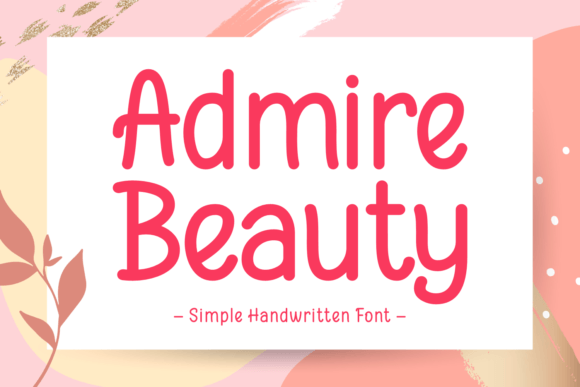
Where Typography Meets Timeless Beauty
Have you ever found yourself staring at a beautifully designed wedding invitation, wondering what made it so special? Maybe it was the delicate dance of letters, the way they seemed to whisper a message of love and joy. For designers, that moment of wonder is what drives us to create something truly breathtaking. And that’s exactly what the Admire Beauty Font offers – a chance to elevate your designs with a touch of elegance and sophistication.
Perfect for print or digital media, this stunning typeface is designed to bring a sense of simplicity and refinement to your work. Whether you’re creating wedding invitations, branding materials, or editorial designs, the Admire Beauty Font is a valuable asset that will make your creations stand out. And with its versatility, you can trust that it will never go out of style – making it a timeless choice for designers seeking to enhance their work with beautiful typography.
Key Features of Admire Beauty Font
- Unique Characteristics: Features a elegant and sophisticated design, with delicate curves and subtle flourishes, making it ideal for use in beauty, fashion, and lifestyle branding.
Designer Review: Admire Beauty Font
Overall, I’d say the Admire Beauty Font is a lovely addition to any designer’s toolkit. It’s ✨ elegant ✨, with a classic feel that evokes a sense of sophistication and refinement. The font is perfect for projects that need a touch of luxury, from high-end branding to fine art prints.
One of the standout features of Admire Beauty Font is its versatility. It’s ✨ highly customizable ✨, allowing you to tweak the font to fit your specific design needs. From adjusting the font weight to experimenting with different color combinations, the possibilities are endless.
However, there are a few limitations to be aware of. The font’s ✨ limited language support ⚠️ may be a concern for designers working on multilingual projects. Additionally, the font’s ✨ rounded edges ⚠️ may not be suitable for projects that require a more modern or edgy feel.
Ultimately, I’d recommend the Admire Beauty Font to designers who are looking for a high-end, elegant font for their next project. While it may have some limitations, its versatility and classic feel make it a solid choice for any designer looking to add a touch of sophistication to their work.
- ✨ Elegant and sophisticated design ✨
- ✨ Highly customizable ✨
- ⚠️ Limited language support ⚠️
- ⚠️ Rounded edges may not be suitable for modern or edgy designs ⚠️
Admire Beauty Font Practical Application Guide
For the best results, use Admire Beauty Font for titles, headings, and emphasis in your designs.
- Beauty and wellness branding
- Fashion and lifestyle publications